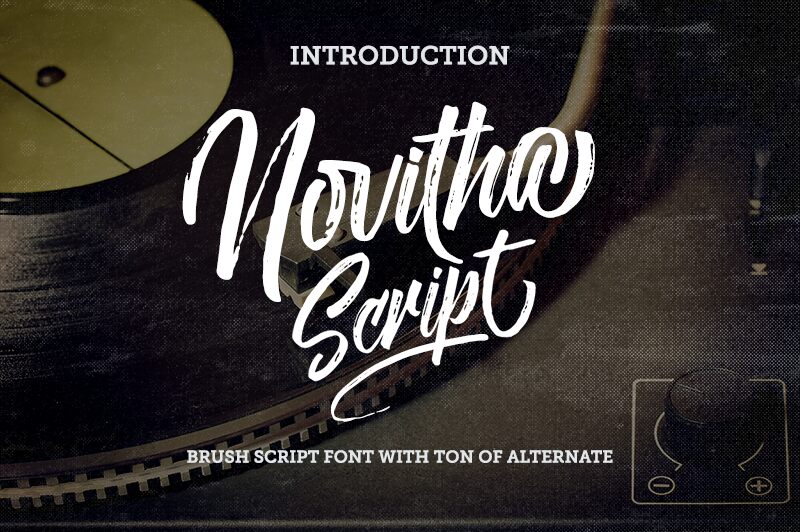
Novitha Script is a captivating handwritten font that exudes a distinct brush-like elegance. Crafted with meticulous attention to detail, this condensed script font possesses a strong, yet refined personality, thanks to its high-resolution scan. Novitha Script's fluid, expressive strokes lend it a versatile appeal, making it a prime choice for logotypes, t-shirt designs, typography posters, and quote compositions. Its unique character and stylistic flair elevate any project, imbuing it with a touch of artistry and sophistication.
Novitha Script is a must-have addition to the repertoire of any typography enthusiast or designer seeking to add a distinctive, handcrafted touch to their work.